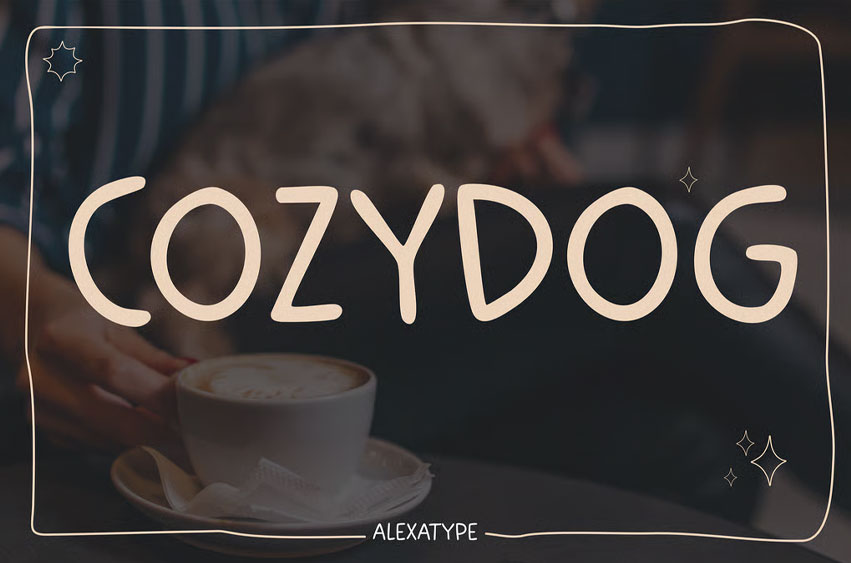
Cozydog Font
Cozydog Font is a soft-spoken, hand-touched sans serif designed to make any message feel warm, human, and gently persuasive. Its rounded curves, playful structure, and low-stress readability make it ideal for branding spaces like cafés, bakeries, local restaurants, eco brands, and cozy product lines.
The tone is inviting, not flashy. Think pastry bag typography, menu boards, and feel-good packaging. It strikes the sweet spot between modern charm and casual friendliness—perfect for businesses that speak softly but sell confidently.
COZYDOG is the font that makes your words feel like a warm croissant and a good hug. It helps brands sell with subtle charm, not pressure, by making every message feel more human, trustworthy, and delicious.
• Soft Rounded Sans Serif – Clean structure with gentle handmade feel
• Designed for Food & Lifestyle Brands – Café signage, dessert packaging, eco goods, small shops
• Friendly But Clear – Legible enough for menus and labels, but warm enough for quotes and promos
• Ideal for Branding – Works great across social media visuals, tote bags, paper cups, and takeout boxes
• Minimal But Expressive – Has just enough personality to stand out without overwhelming your design